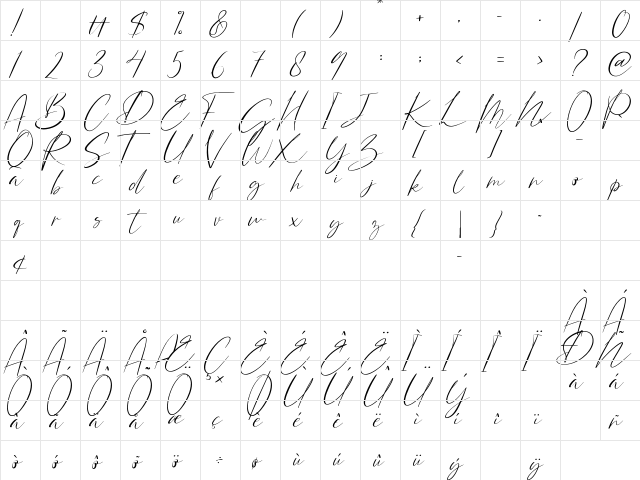
Bonstage Regular
Design Context for Bonstage Typeface
Bonstage is a composed and adaptable typeface that performs quietly and consistently across a wide range of design contexts.